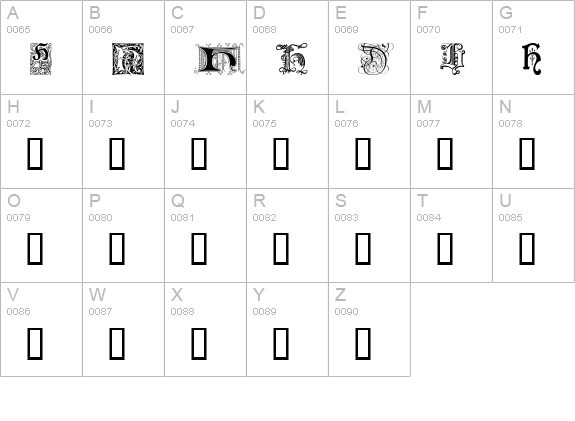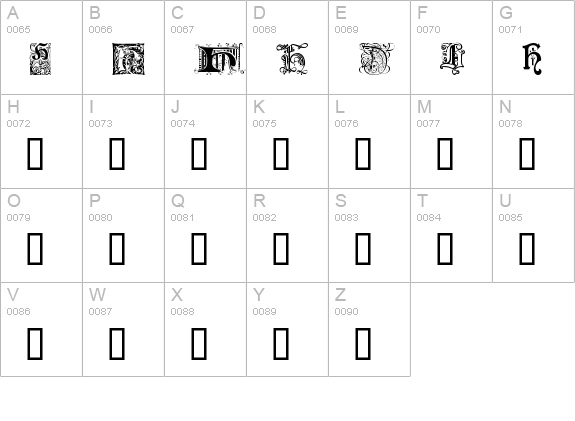
Ornamental Initials H Font Details
Ornamental Initials H font is a stunning display typeface that exudes elegance and sophistication. Its intricate details and ornate design make it perfect for adding a touch of luxury to your projects. The ornamental initial 'H' is beautifully crafted, with delicate flourishes and embellishments that make it truly stand out. This font is ideal for use in invitations, wedding stationery, branding, and other design projects where a touch of opulence is desired. The ornamental initials add a unique and distinctive flair to any text, making it a great choice for creating eye-catching titles and headings. Best of all, Ornamental Initials H font is completely free to download at FontsMarket.com. Whether you're a professional designer or a hobbyist looking to elevate your projects, this font is a fantastic addition to your collection. Add a touch of sophistication and charm to your designs with Ornamental Initials H font today!